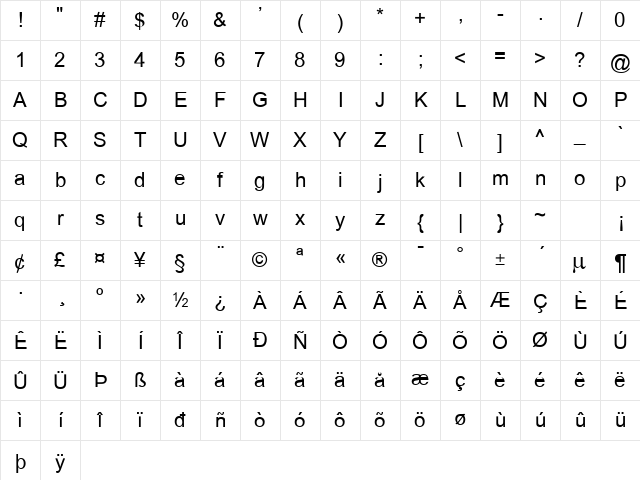
Dixon Normal Free Font
Dixon Normal
Design Context for Dixon
Dixon is a composed and adaptable typeface that performs quietly and consistently across a wide range of design contexts.